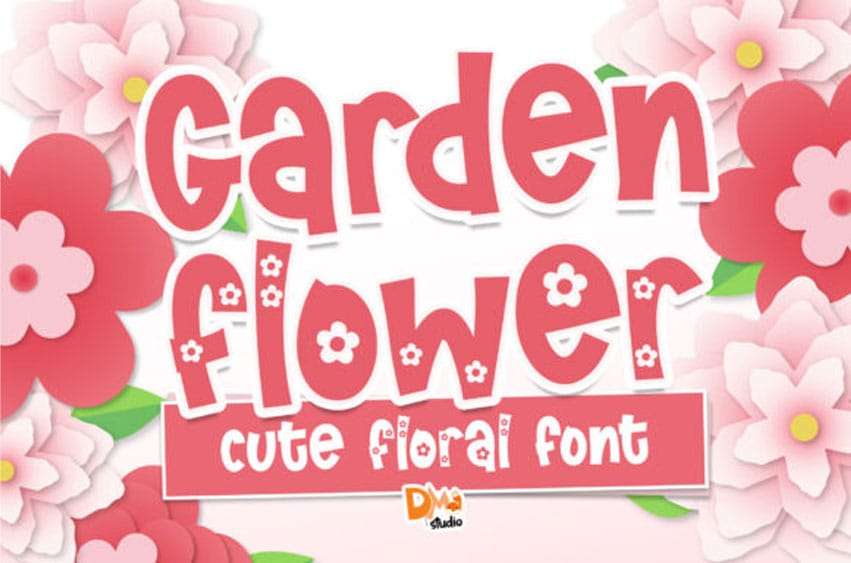
Garden Flower Font is a chic and floral display font.
This original look will appeal to a wide range of crafty ideas, from letterheads and titles, to stationery.